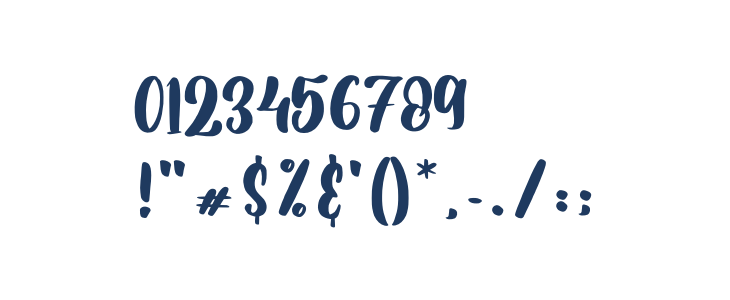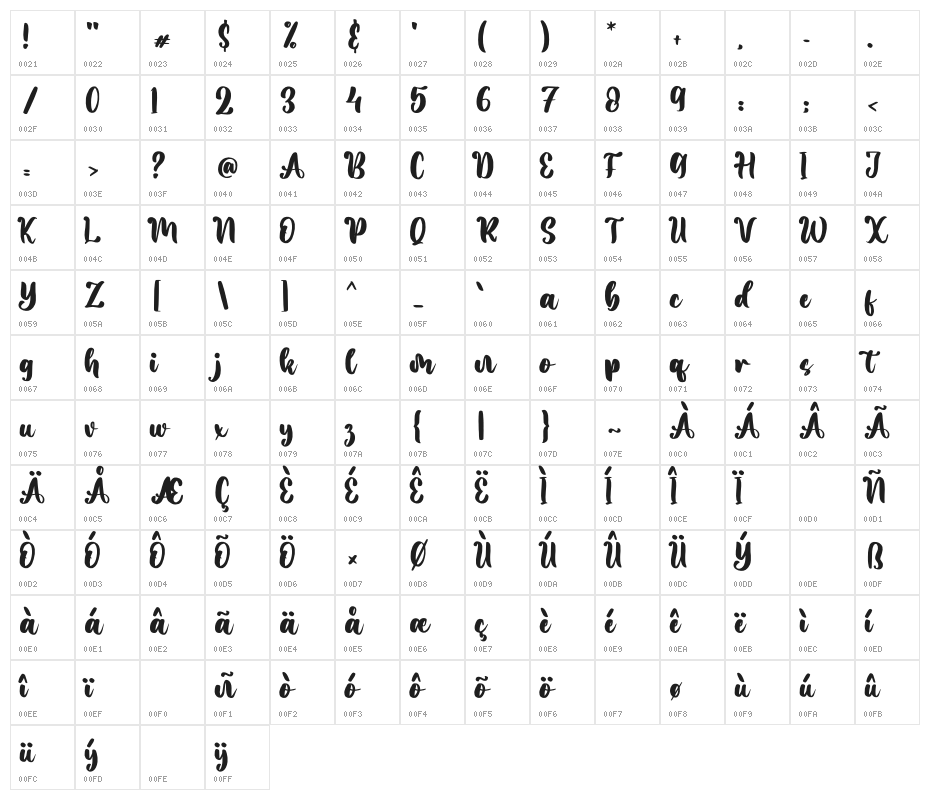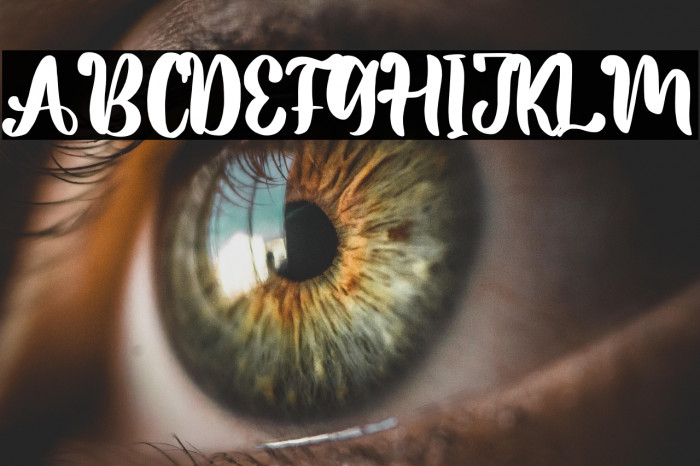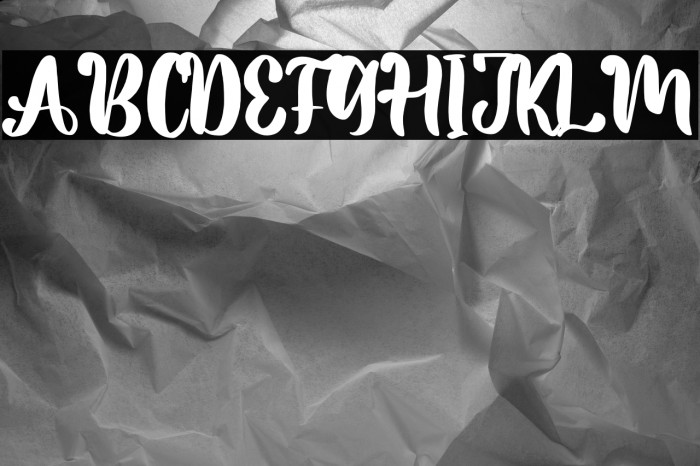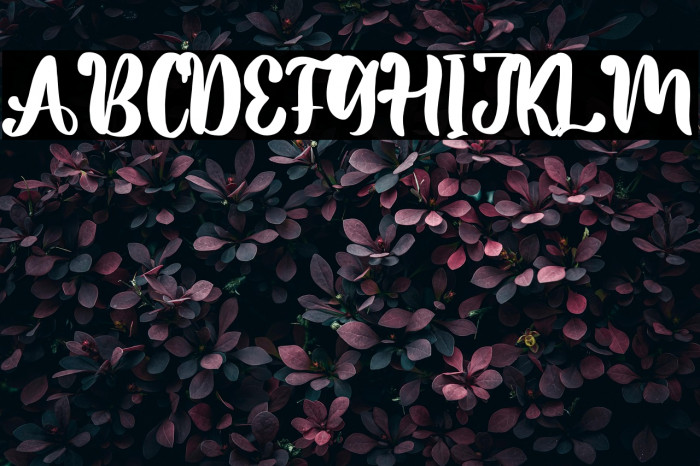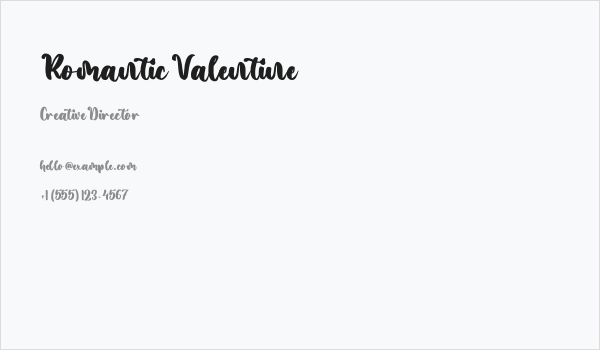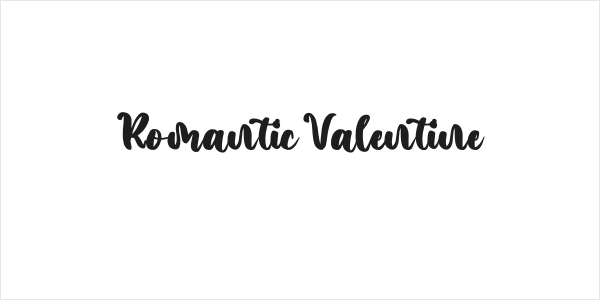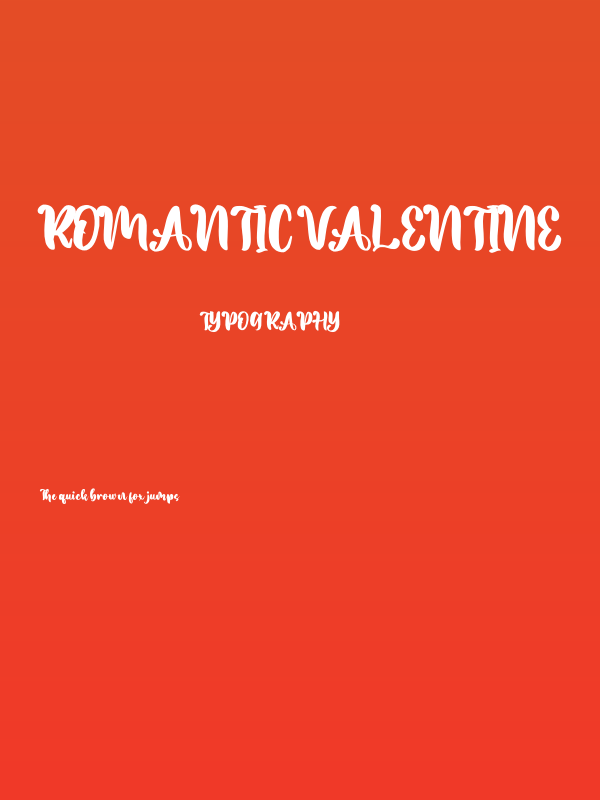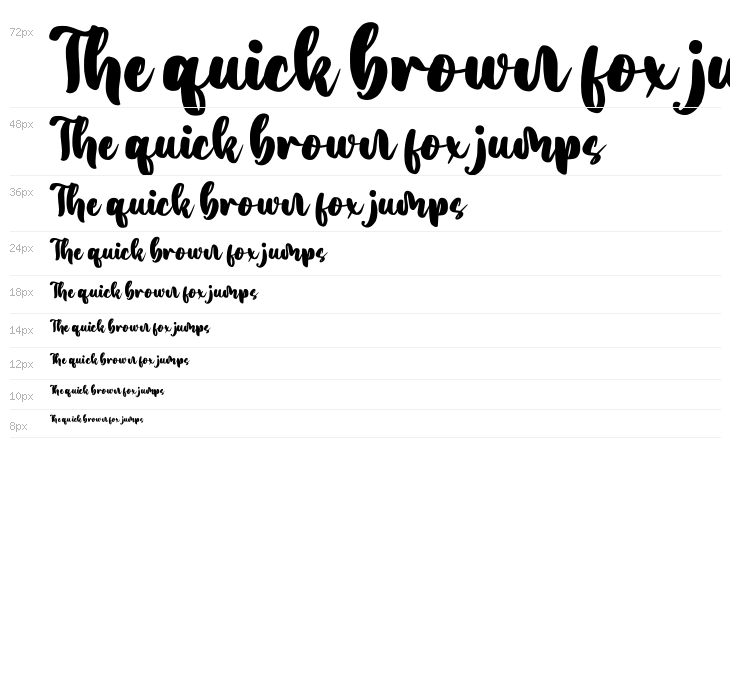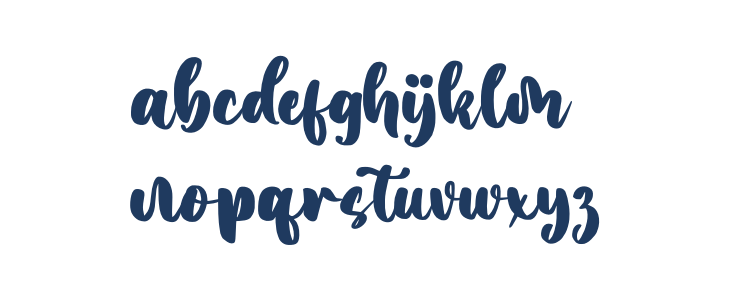
Romantic Valentine Font
Romantic Valentine Description
This font features a bold and expressive script style, characterized by its flowing, cursive letters that exude a sense of romance and elegance. The uppercase and lowercase letters are designed with sweeping curves and flourishes, giving the font a dynamic and lively appearance. The numbers and special characters maintain the same fluidity, ensuring consistency across all glyphs. The thick strokes and high contrast between thick and thin lines add to its dramatic flair, making it ideal for attention-grabbing designs. The overall aesthetic is both playful and sophisticated, perfect for projects that require a touch of charm and personality.
| Overall Style | Romantic, Elegant |
| Use Case | Headlines, Invitations, Branding |
| Proposed Projects | Ideal for wedding invitations, greeting cards, branding, and romantic-themed designs. |